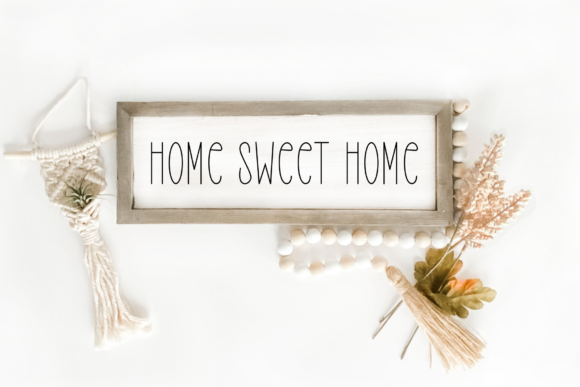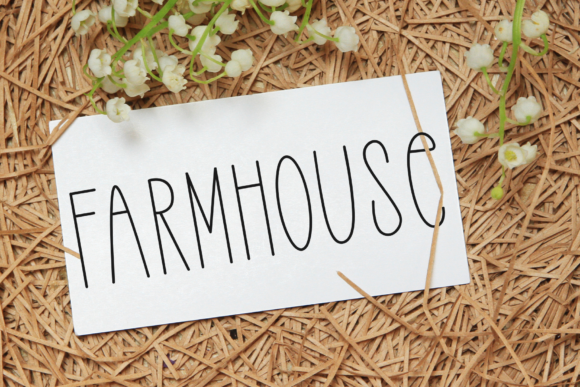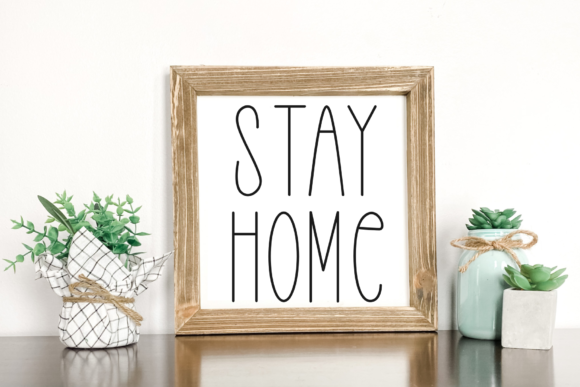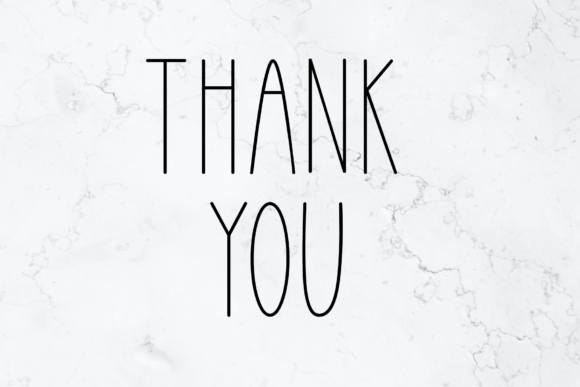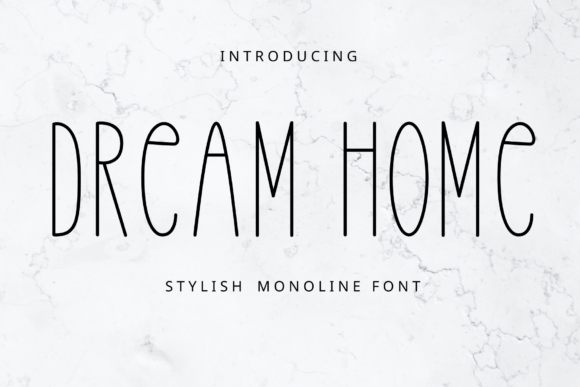
Dream Home Font: The Perfect Choice for Crafts and Designs
Are you a designer or crafter looking for a font that can add a touch of elegance and playfulness to your projects? Look no further than the Dream Home font. This simple and thin lettered sans serif font is dainty and joyful, making it ideal for a wide range of crafts, from vinyl stickers to labels, t-shirts, and more.
What is Dream Home Font?
Dream Home font is a modern sans serif font that features a simple and clean design. Its thin letters give it a delicate and airy feel, making it perfect for designs that require a touch of sophistication and elegance. The font is highly versatile and can be used for a variety of projects, including paper crafts, DIY projects, and digital designs.
Key Features of Dream Home Font
- Simple and thin lettered design: The Dream Home font features a simple and thin lettered design that gives it a delicate and airy feel.
- Sans serif: The font is a sans serif font, which means it doesn’t have any decorative lines or flourishes at the ends of the letters.
- Dainty and joyful: The font has a dainty and joyful feel, making it perfect for designs that require a touch of playfulness and whimsy.
- Highly versatile: The font is highly versatile and can be used for a wide range of projects, including paper crafts, DIY projects, and digital designs.
Uses of Dream Home Font
The Dream Home font is perfect for a wide range of crafts and designs, including:
- Vinyl stickers: The font’s simple and thin design makes it perfect for vinyl stickers, which require a clean and easy-to-read font.
- Labels: The font is also great for labels, which require a clear and concise font that can communicate information quickly and easily.
- T-shirts: The font’s playful and whimsical feel makes it perfect for t-shirts, which require a font that can add a touch of personality and style.
- Permanent cards: The font is also great for permanent cards, which require a font that can convey a sense of elegance and sophistication.
- DIY projects: The font’s versatility makes it perfect for DIY projects, such as scrapbooking, journaling, and other paper crafts.
Why Choose Dream Home Font?
There are many reasons why you should choose the Dream Home font for your next project. Here are a few:
- Unique and eye-catching: The font’s simple and thin design makes it unique and eye-catching, which can help your project stand out from the crowd.
- Easy to read: The font is easy to read, even at small sizes, which makes it perfect for designs that require a lot of text.
- Highly versatile: The font is highly versatile and can be used for a wide range of projects, which makes it a great addition to any designer’s toolkit.
Tips for Using Dream Home Font
Here are a few tips for using the Dream Home font:
- Use it with contrasting colors: The font’s thin design can make it difficult to read if it’s not used with contrasting colors. Try using it with bold and bright colors to make it stand out.
- Experiment with different sizes: The font can be used at a variety of sizes, from small to large. Experiment with different sizes to find the one that works best for your project.
- Pair it with other fonts: The font can be paired with other fonts to create a unique and eye-catching design. Try pairing it with a bold and playful font for a fun and playful look.
| Font Name | Dream Home Font |
| Author | alanstudio99 |
The Dream Home font is a simple and thin lettered sans serif font that is perfect for a wide range of crafts and designs. Its dainty and joyful feel makes it ideal for designs that require a touch of playfulness and whimsy. With its highly versatile design and affordable price, it’s a great addition to any designer’s toolkit.